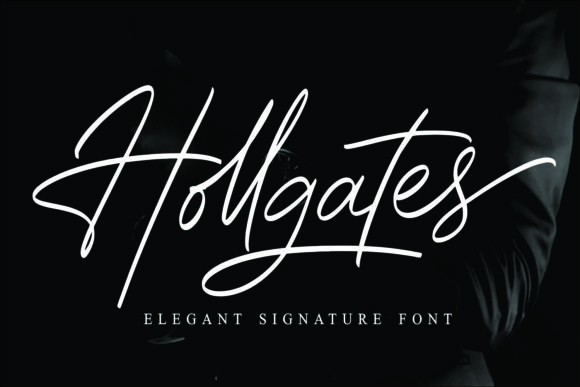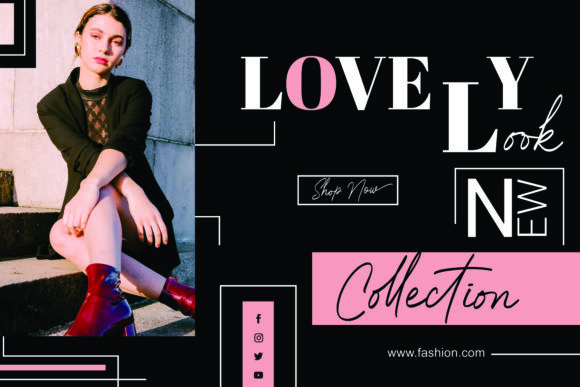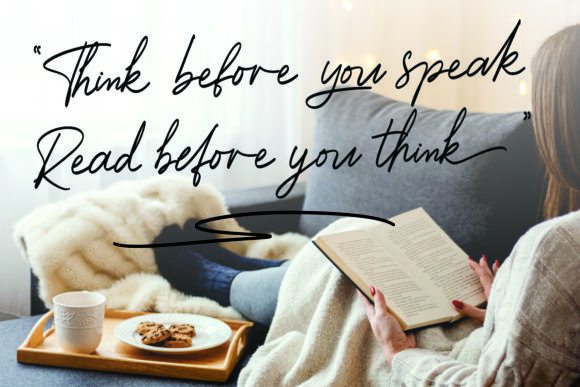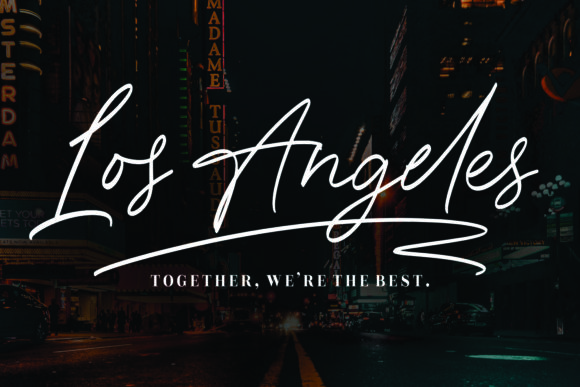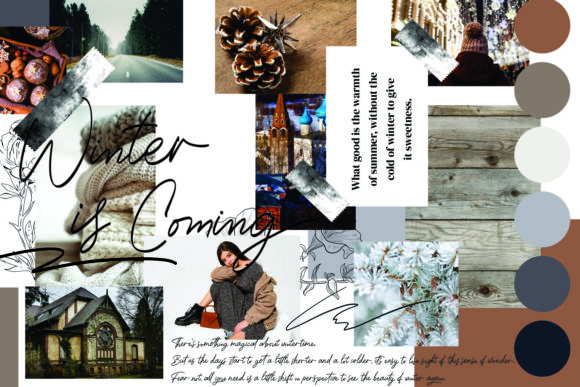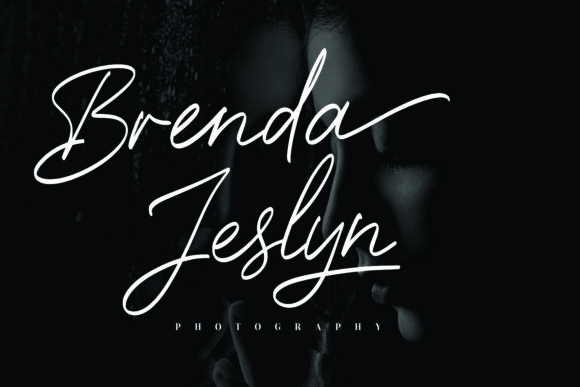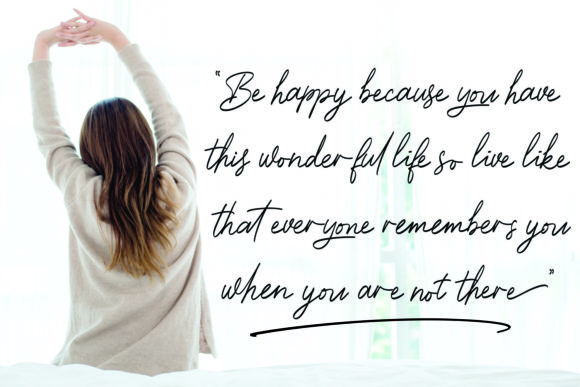
The Perfect Blend of Simplicity and Elegance: Introducing Hollgates Font
Have you ever found yourself stuck in a creative rut, staring at a blank page with no idea where to begin? I’m sure we’ve all been there. For me, it’s moments like these that remind me of the importance of having the right tools at our disposal. A well-crafted font can make all the difference in bringing a design to life, and that’s exactly what Hollgates Font aims to do.
With its casual and flowing script design, Hollgates Font is the perfect match for any project that requires a touch of elegance and sophistication. Whether you’re a seasoned designer or just starting out, this versatile font is sure to become a trusted companion in your creative journey. Its stylish alternates and ligatures make it incredibly valuable for designers who want to add a unique touch to their work.
Hollgates Font Key Features
- Unique Character Set: Features a wide range of characters, including ligatures, swashes, and alternate characters for added creativity
Hollgates Font Review
I recently had the chance to work with Hollgates Font, and I must say it was a unique experience. ✨ One thing that really stands out is the font’s quirky, hand-drawn feel. It adds a touch of personality to any design, making it perfect for projects that need a bit of whimsy.
Another aspect I appreciate is the font’s versatility. ✨ It comes in a range of weights and styles, allowing designers to easily switch between bold headings and delicate body text. The font also supports a wide range of languages, making it a great choice for global projects.
- ⚠️ Limited support for smaller font sizes, which can make it difficult to read in certain contexts.
- ⚠️ The font’s unique feel can sometimes come across as unprofessional, which may not be suitable for all projects.
- ⚠️ Some users have reported issues with the font’s kerning, which can affect the overall appearance of text.
Overall, I think Hollgates Font is a solid choice for designers looking to add some personality to their projects. While it may not be perfect, its unique feel and versatility make it a great option for the right projects. With a bit of caution and careful planning, Hollgates Font can be a valuable addition to any designer’s toolkit.
Hollgates Font is commonly used for:
- Headings and titles in designs
- Body text in articles and blog posts
Can I customize Hollgates Font?
Hollgates Font is a highly customizable typeface. It supports advanced OpenType features, including stylistic sets, contextual alternates, and swashes. You can also adjust the font’s parameters, such as letter spacing and word spacing, to suit your design needs. However, please note that some modifications may require advanced design software and technical expertise.